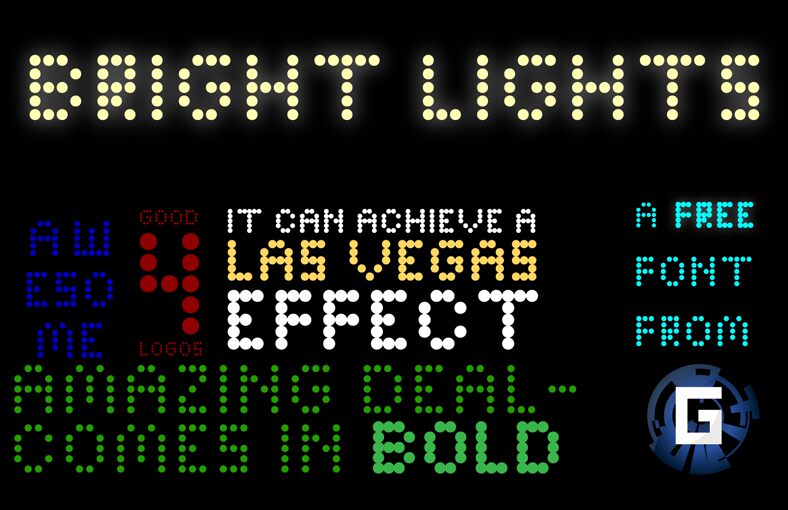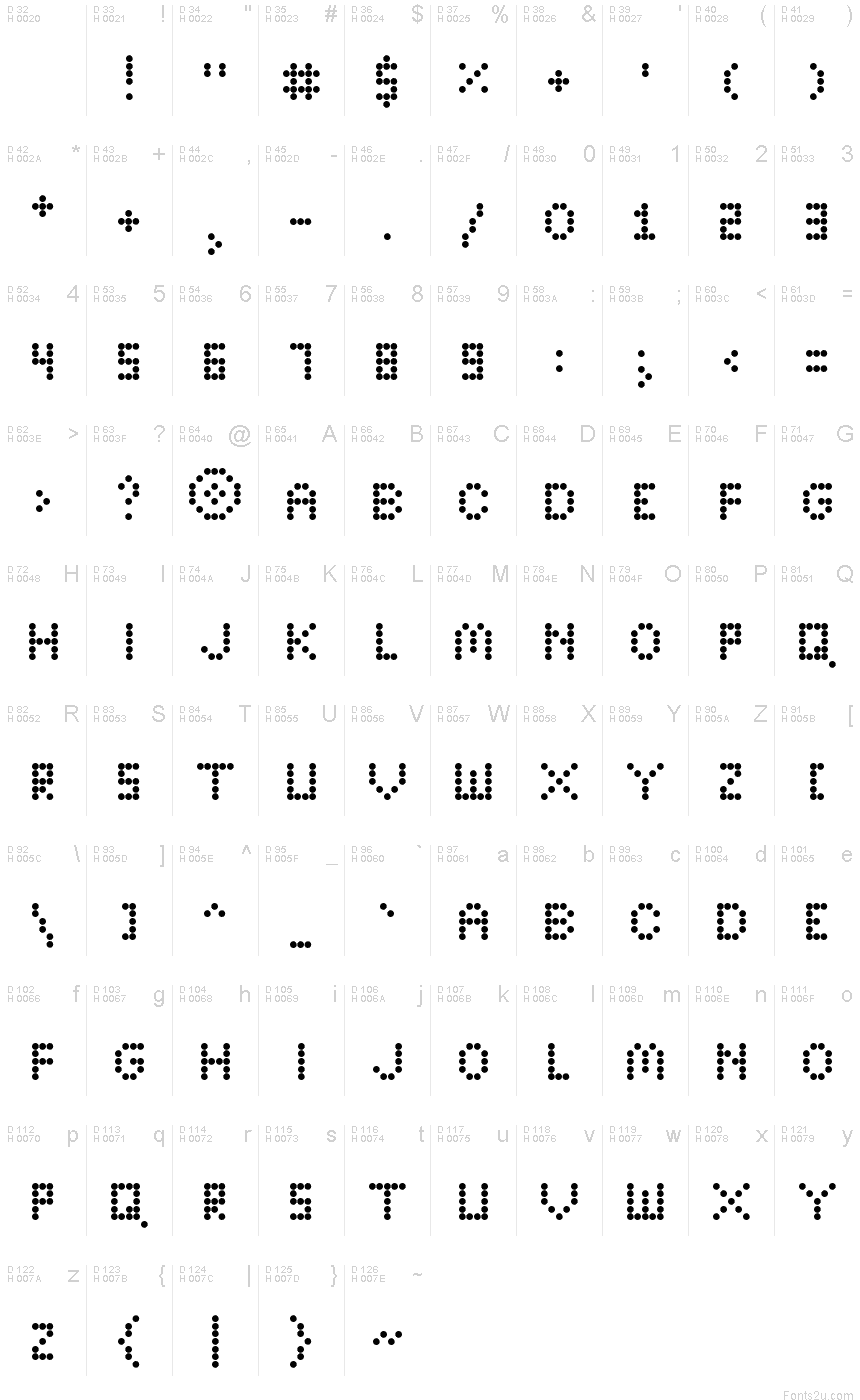
Bright Lights Bold by supermattyb of FontStruct is a free dot-matrix pixel font with the buoyant look of an illuminated theater sign and classic show-business glamour. Its broad letters use evenly rounded lights and generous internal gaps, giving the alphabet a crisp, open silhouette despite its substantial width.
Concert posters are an especially apt setting for this design. The same electronic sparkle suits arcade graphics, nightclub branding, and event merchandise, linking each application to the excitement of signage switching on.
Bright Lights is available in Light, Medium, and Bold.